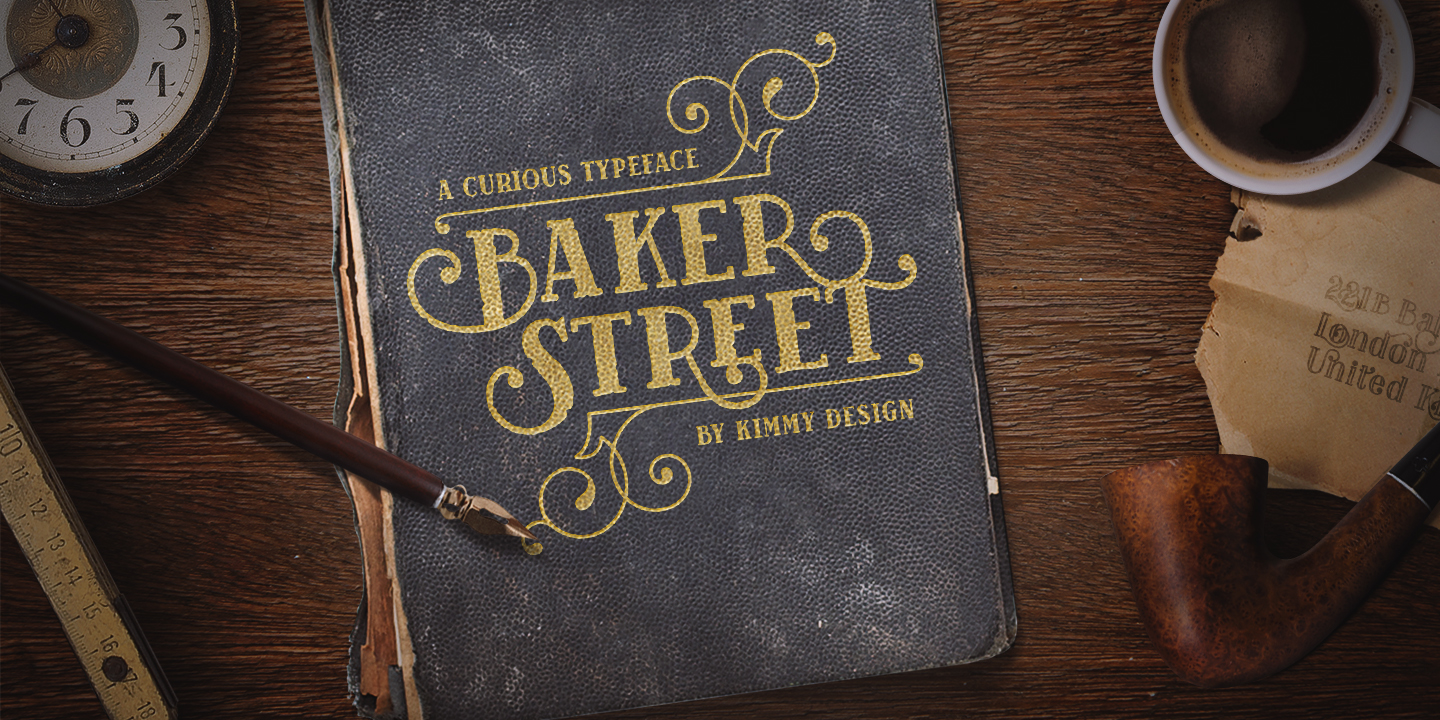
Baker Street Font is a distinguished and profoundly captivating typeface, perfectly suited for projects that aim to evoke the classic charm of Victorian London, the intrigue of a good mystery, and a sense of timeless elegance. Imagine it gracing the covers of detective novels, adding an authentic and sophisticated touch to historical society publications, or providing a distinguished aesthetic for bespoke menswear branding. It's also an excellent choice for crafting unique invitations for themed events, designing engaging social media graphics for literary clubs, or bringing a polished, intellectual feel to editorial layouts and cultural commentaries. If you're looking to convey heritage, intrigue, and an undeniable sense of classic British allure, Baker Street Font is an outstanding selection.
What makes Baker Street Font so exciting? It’s its unique ability to combine traditional typographic craftsmanship with a distinctive character that whispers tales of gaslight alleys and brilliant deductions. This font often features carefully balanced letterforms, perhaps with subtle serifs or a robust display quality, that give it an undeniable charisma and visual richness. Despite its often period-inspired flair, Baker Street Font is meticulously designed to maintain excellent readability, ensuring your message is communicated beautifully and with an authoritative, engaging tone. Designers will appreciate its versatility in creating designs that feel both historically authentic and professionally polished, making it a go-to choice for brands and projects that aim to connect with their audience through compelling storytelling and a sophisticated aesthetic.
The Baker Street Font family is typically designed to showcase a singular, beautifully crafted display or serif style that perfectly embodies its unique appeal. While it may not feature extensive weight variations like a traditional text font, its strength lies in its inherent personality and often includes a rich set of stylistic alternates, ligatures, or unique glyphs that enhance its period aesthetic. These subtle details ensure that Baker Street Font maintains its cohesive and captivating look across various applications, from commanding headlines for theatrical productions to charming personal correspondence. Discover the authentic charm of Baker Street Font Free Download and infuse your designs with an unforgettable sense of history and mystery.